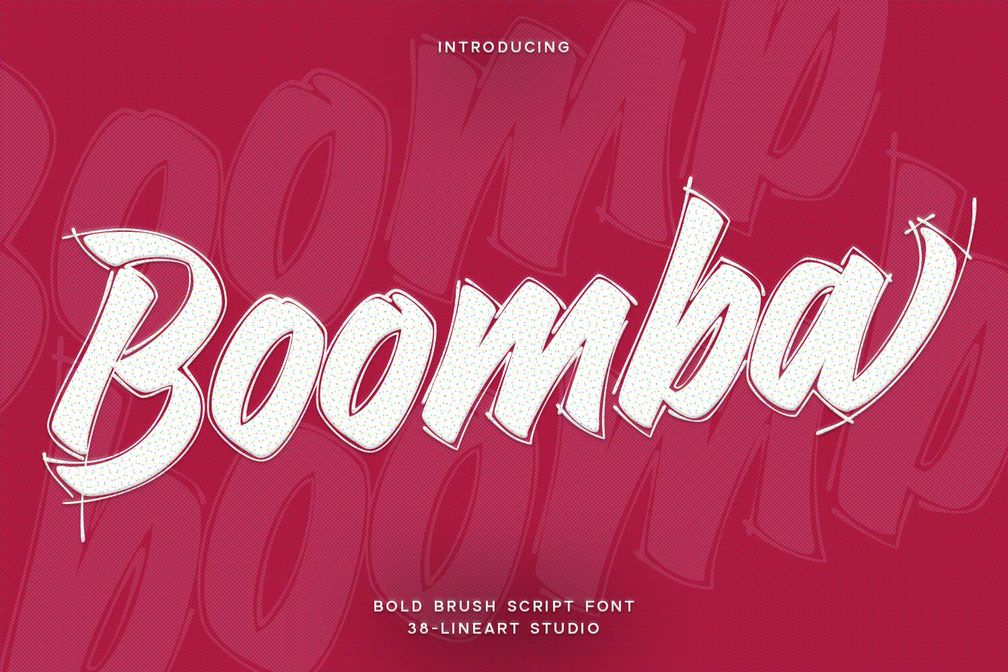
- Boomba
Boomba is an exciting and dynamic font that embodies the essence of creativity and youthful exuberance. With its unique strokes and electrifying presence, it stands out from the crowd, making it perfect for capturing attention and infusing life into any design. Boomba is a fusion of art and typography, offering an exhilarating journey into the world of expressive fonts. Embrace the energy, unleash your imagination, and let Boomba take you on a thrilling typographic adventure